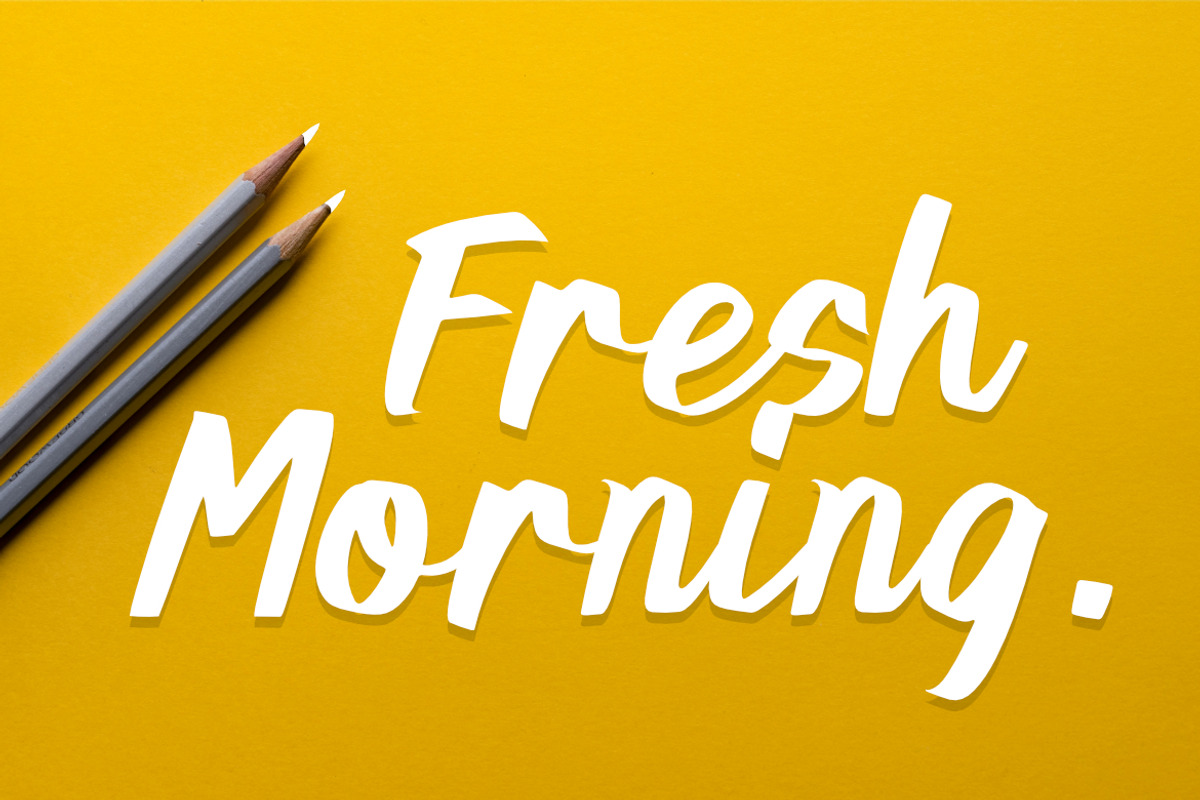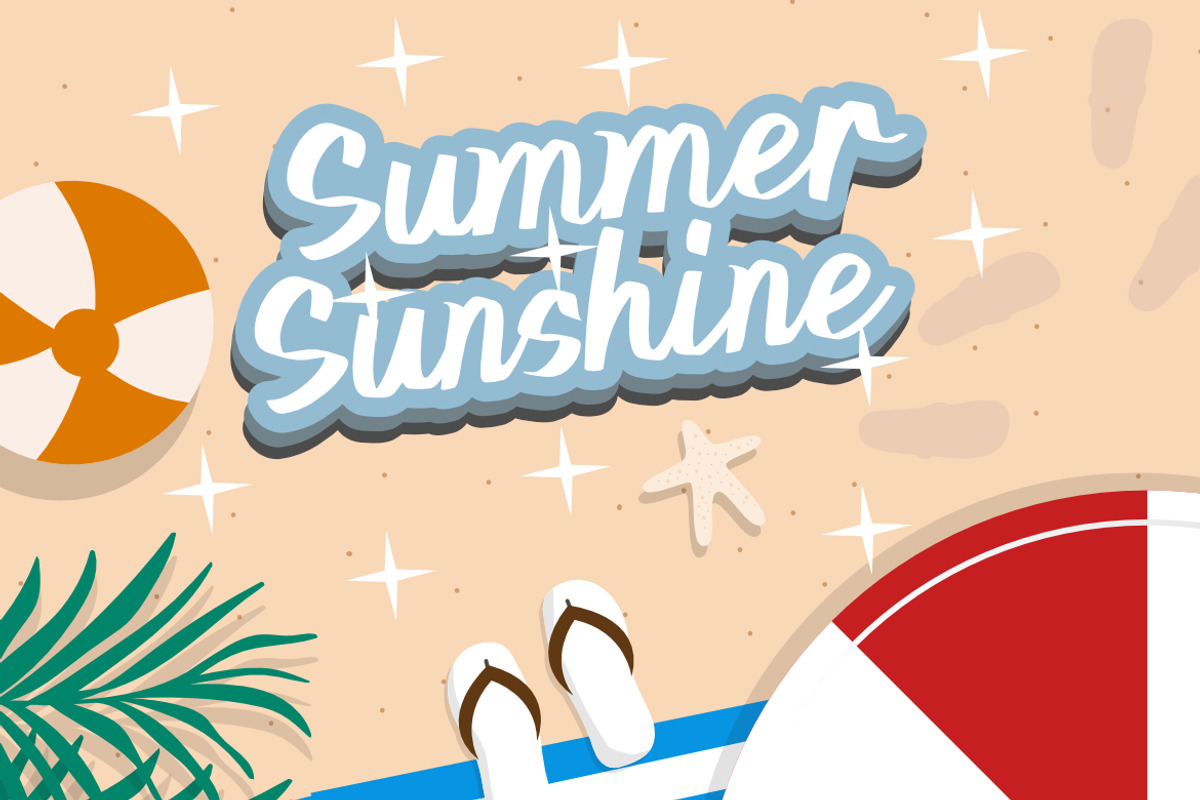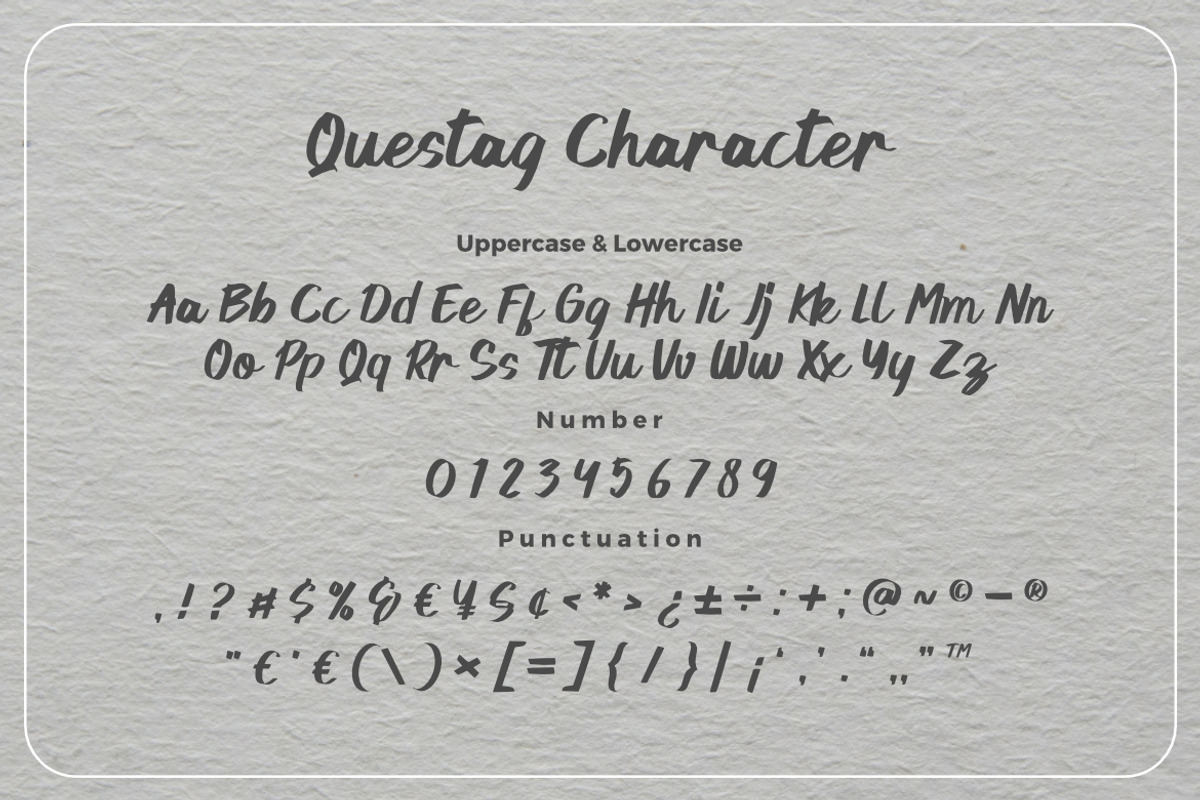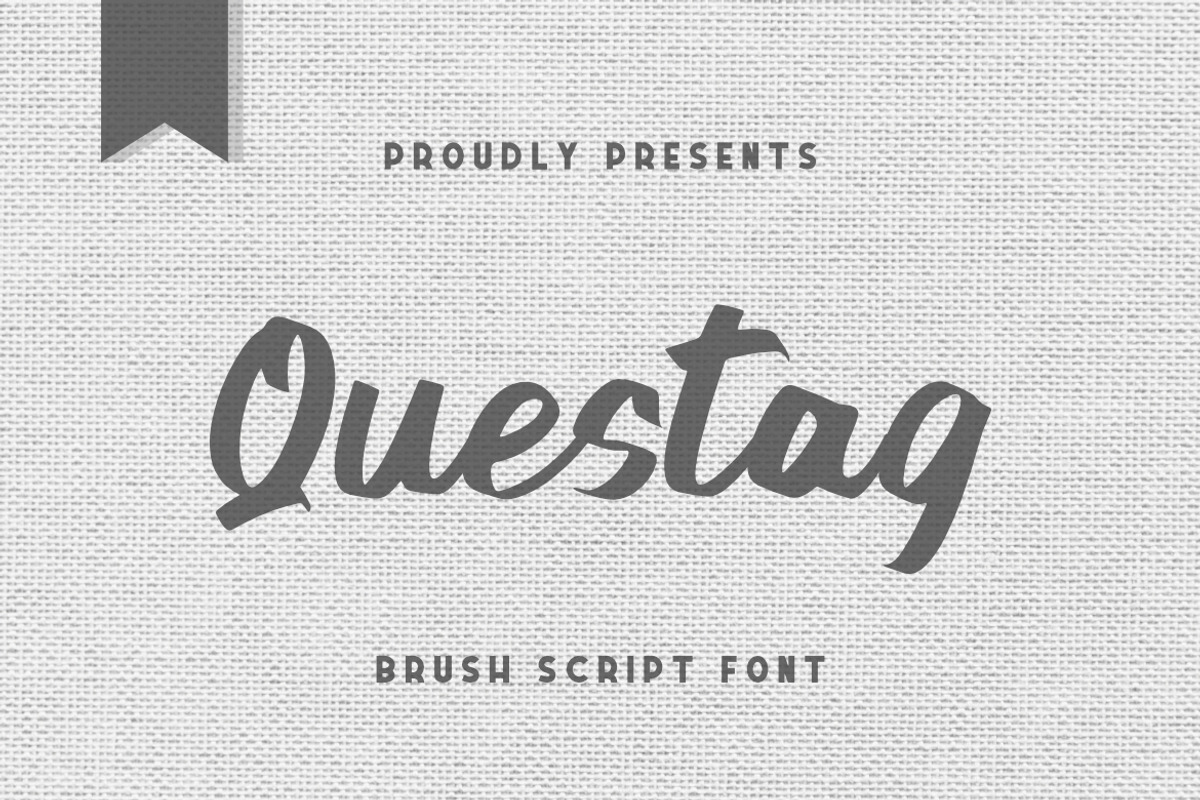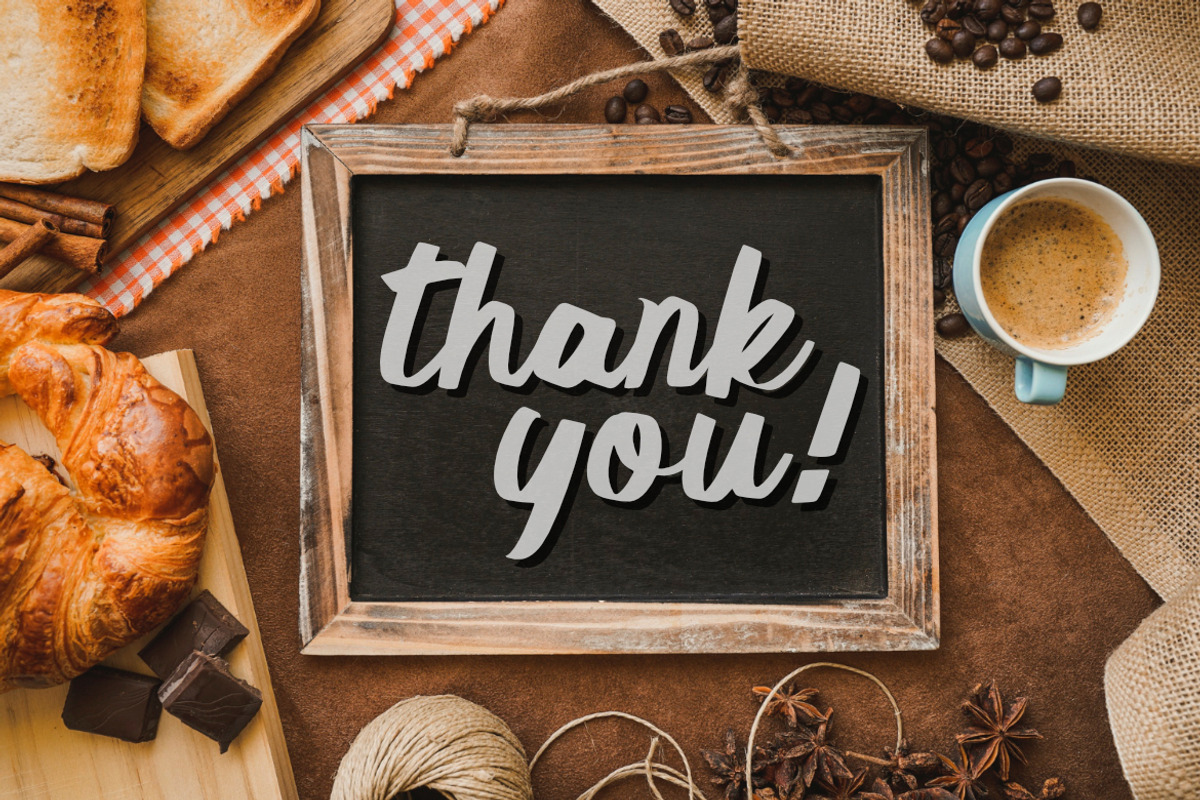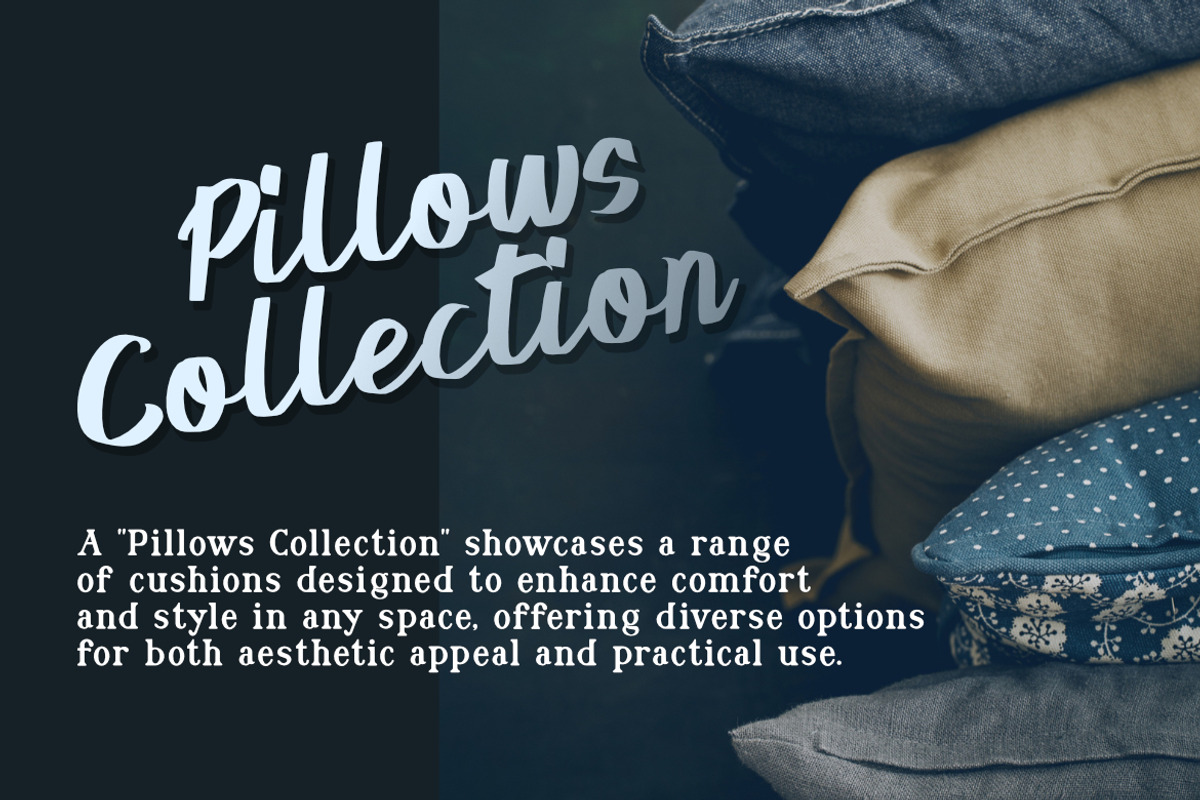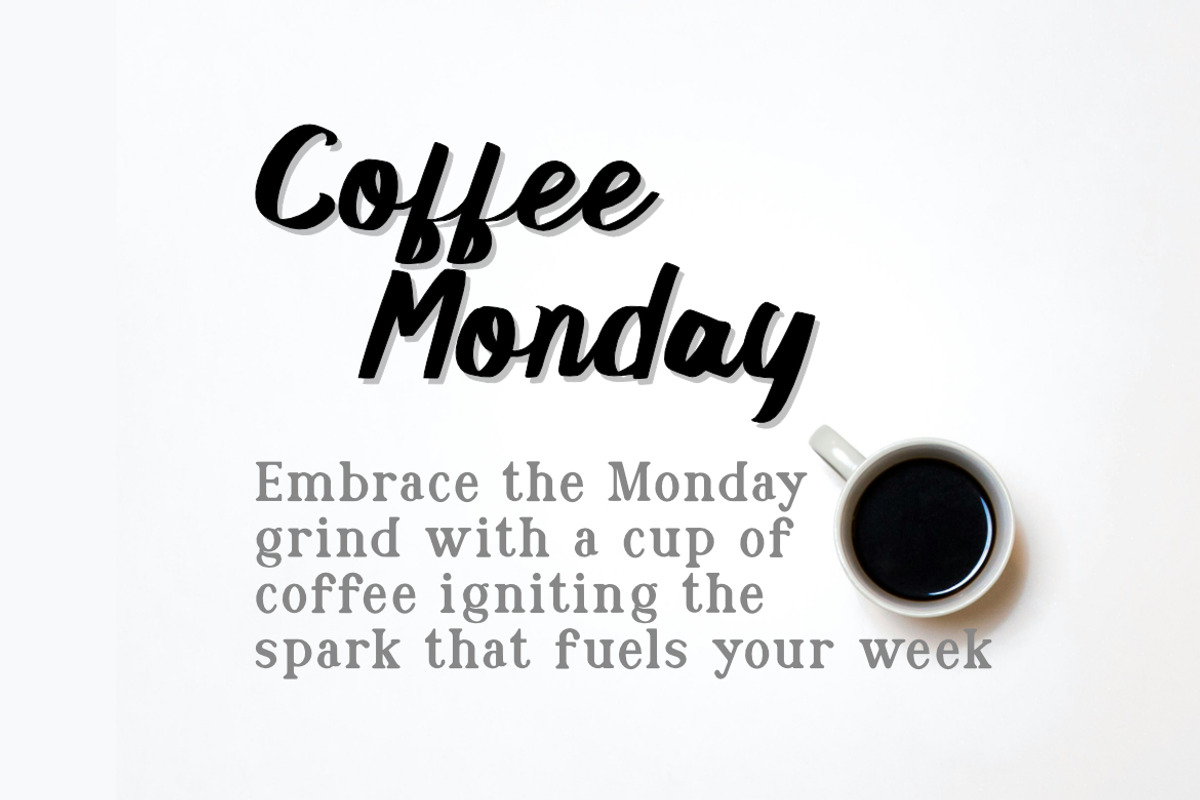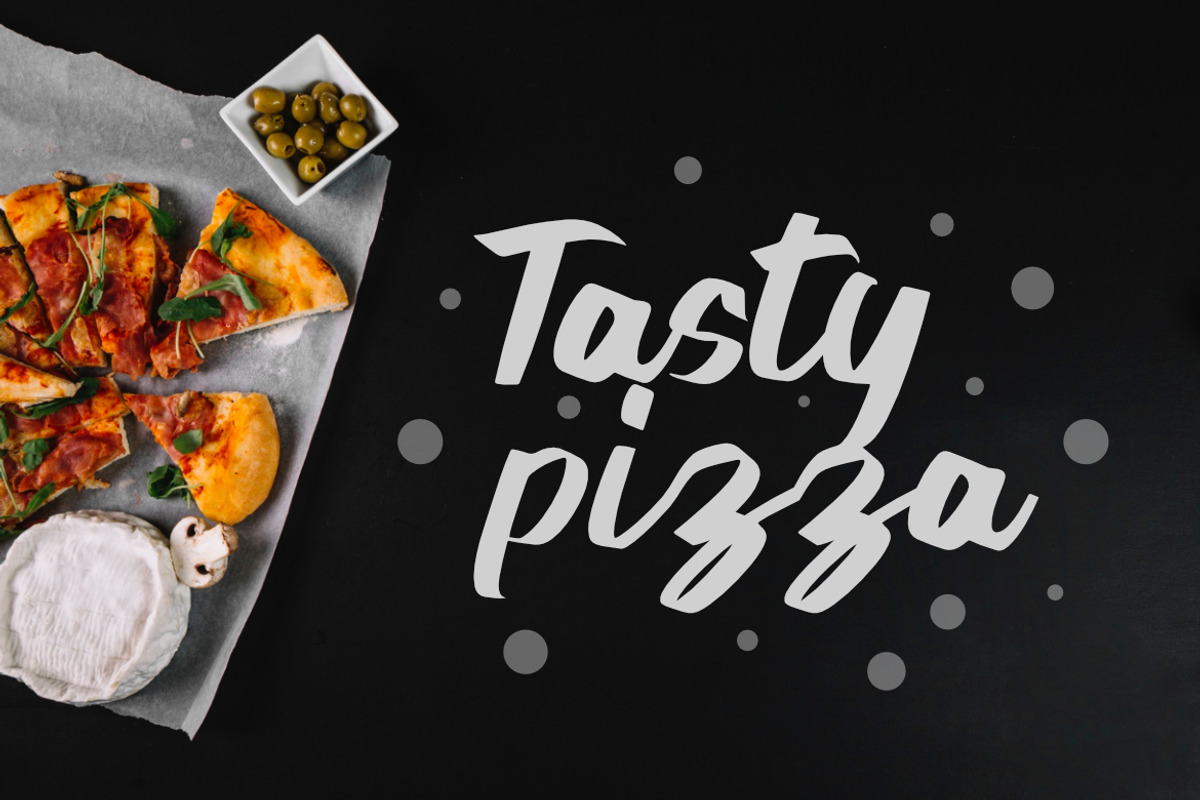
Questag - Brush Scirpt Font
Questag Brush Script Font, This font is made with a high premium quality level which you can use as flyers, quotes, posters, banners, packaging, merchandise, logotypes and much more.